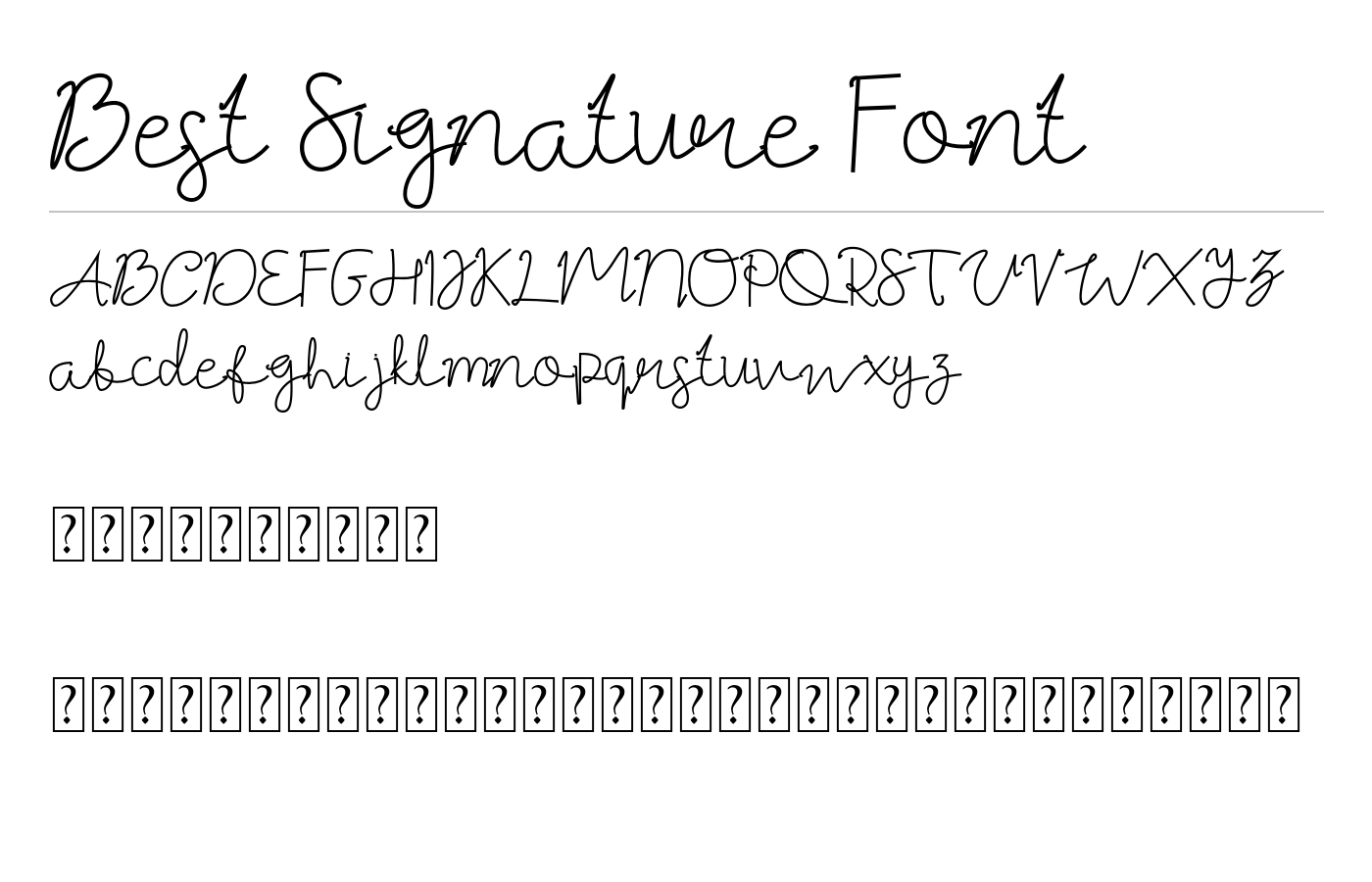
Best Signature Font is a delicate and elegant handwritten script with a light, airy feel and smooth, flowing lines that mimic natural pen strokes. Its slender letterforms and casual, yet refined style make it ideal for personal branding, invitations, and creative projects that need a touch of sophistication and authenticity. This font works beautifully for logos, wedding stationery, and editorial designs where a graceful, personal touch is desired.
Best Signature Font
About Best Signature Font